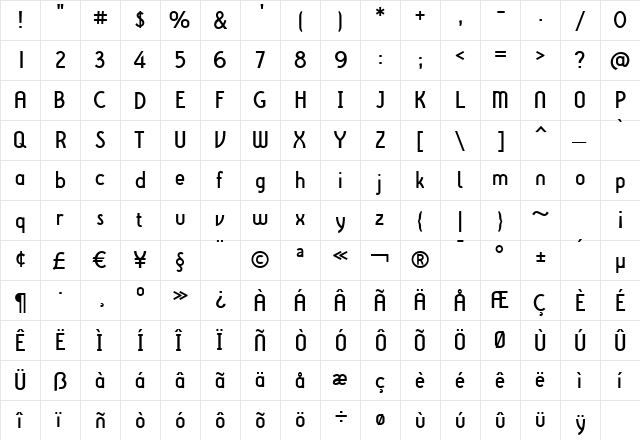
Iru2Medium Regular
Iru2Medium offers clean, dependable letterforms without strong stylistic allegiance, making it a practical choice for designers who need flexibility.